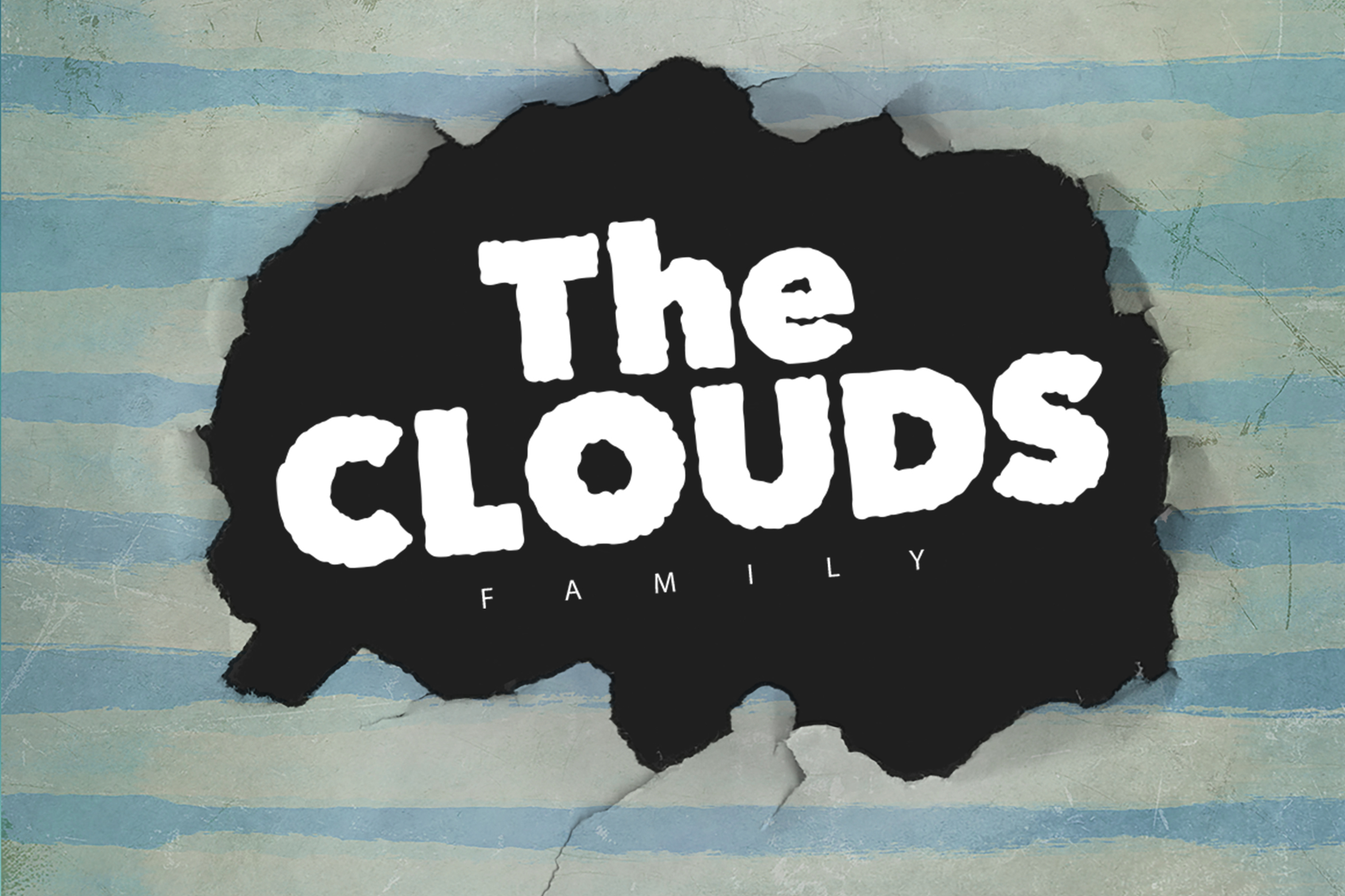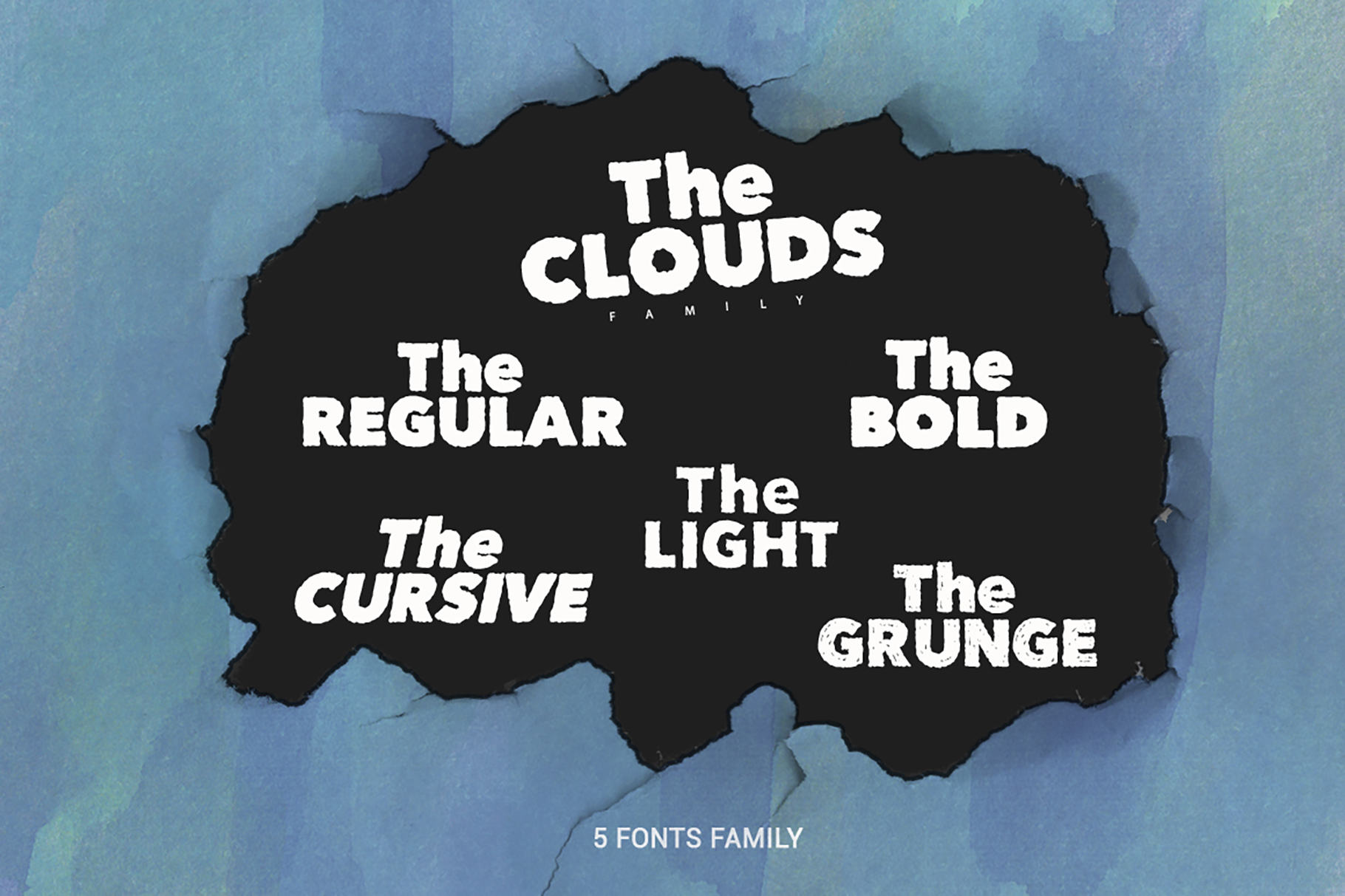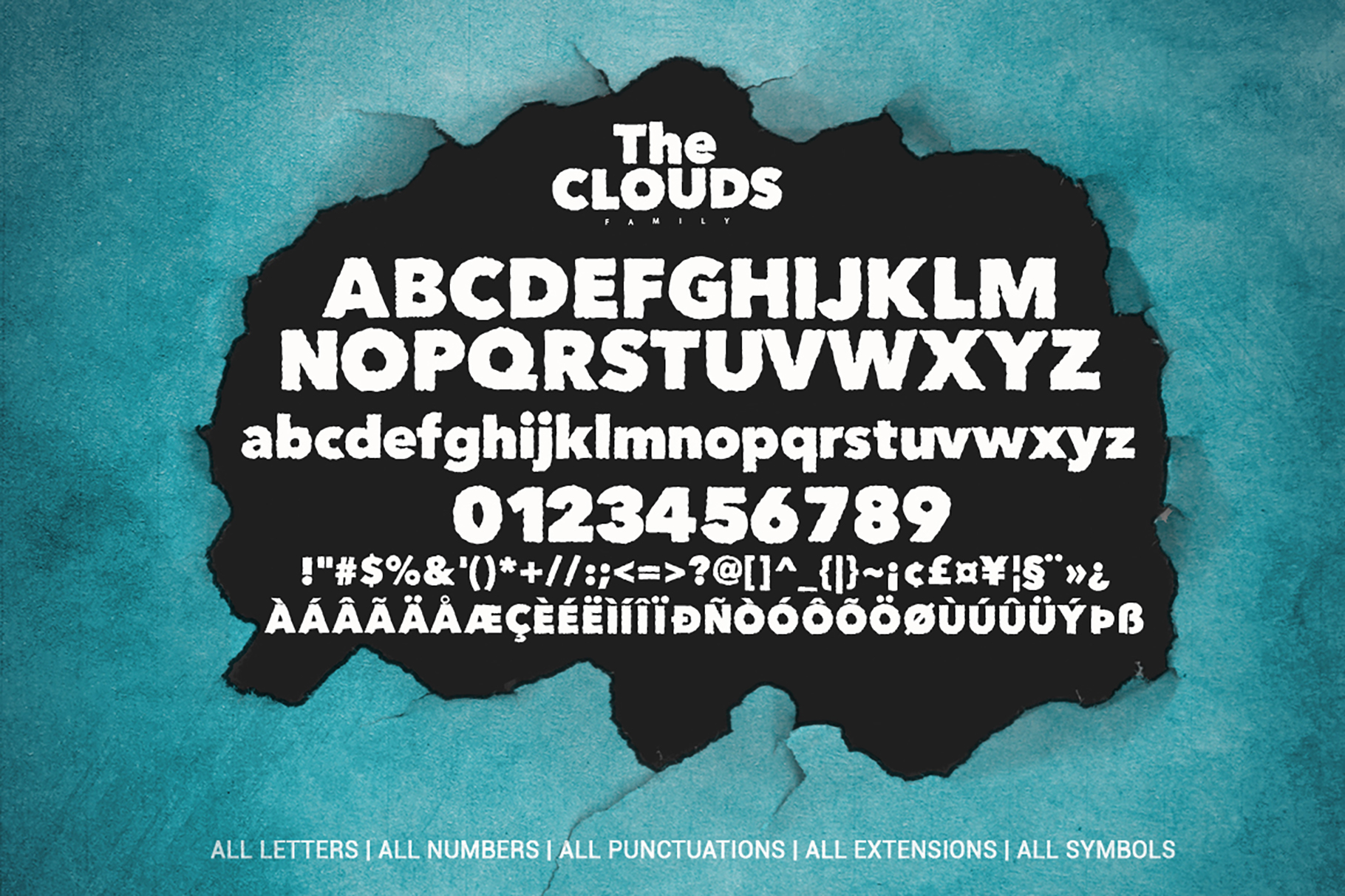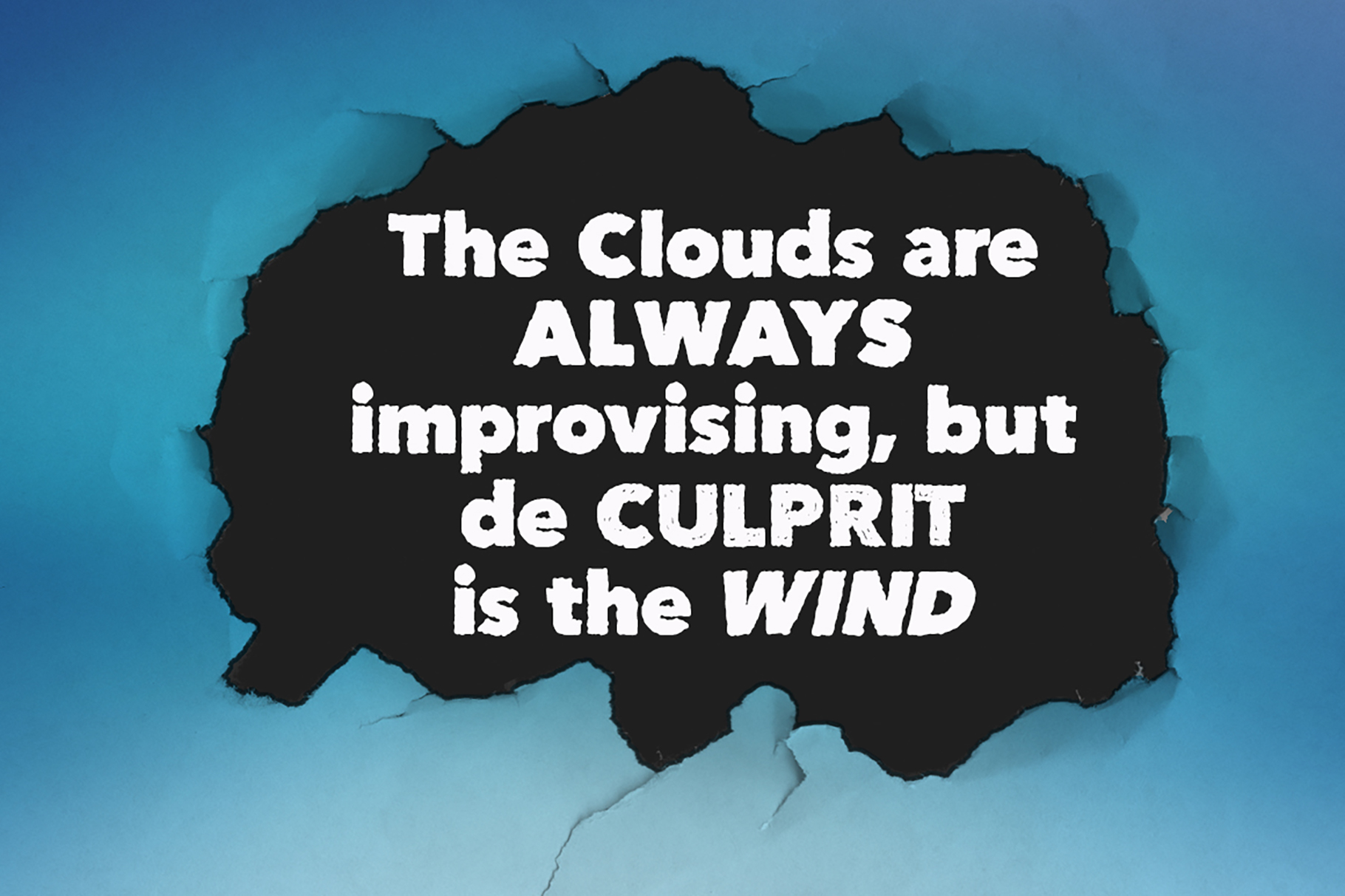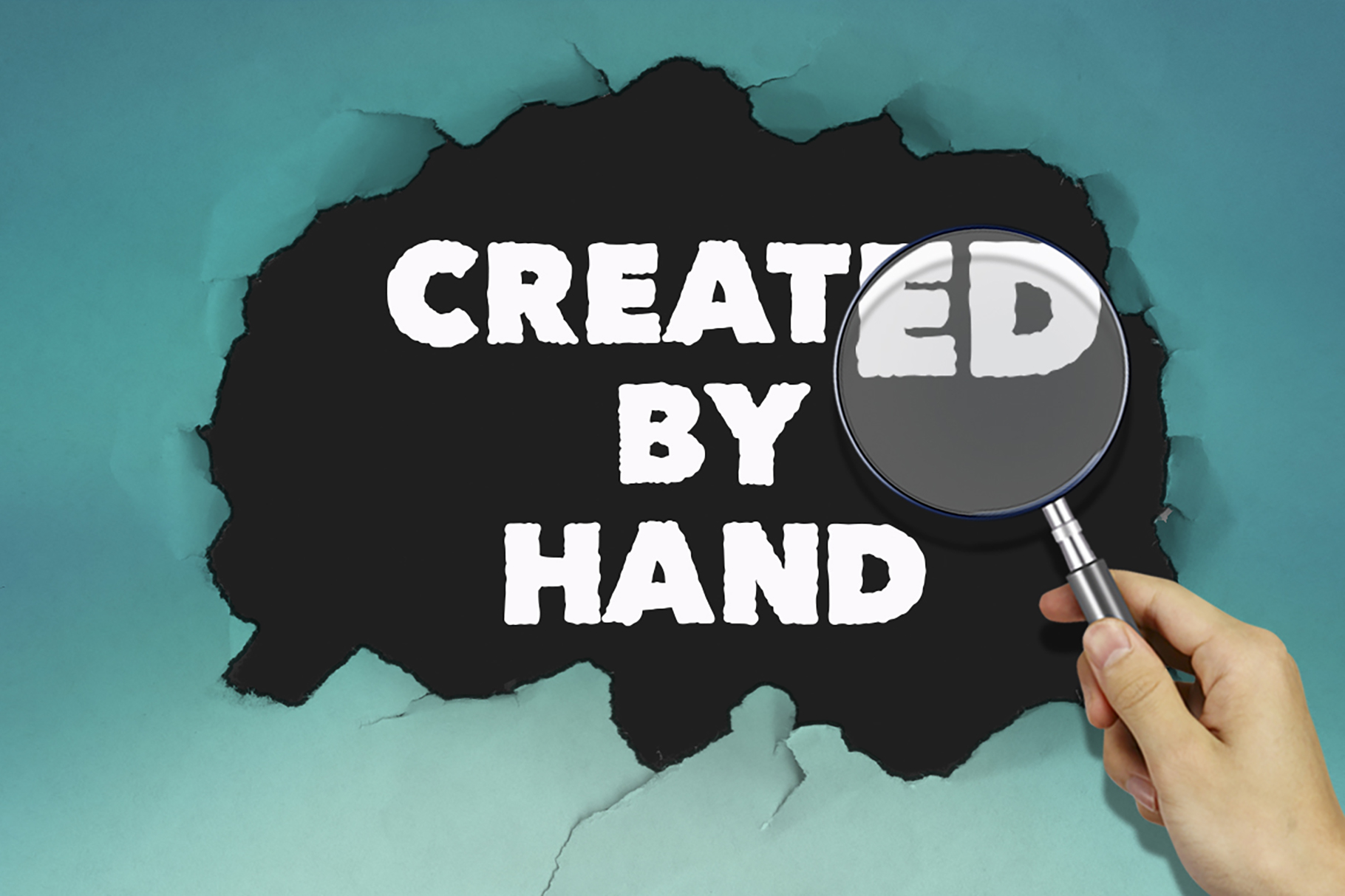
The Clouds Family is a stylish playful family that offers loads of fun, include:
- All Letters
- All Symbols
- All Punctuations
- All Numbers
- All Extensions
There are 5 matching fonts that work together great and will allow you to offer tremendous variation in your designs. The letters are very easy to read which makes this font suitable for both digital and print.